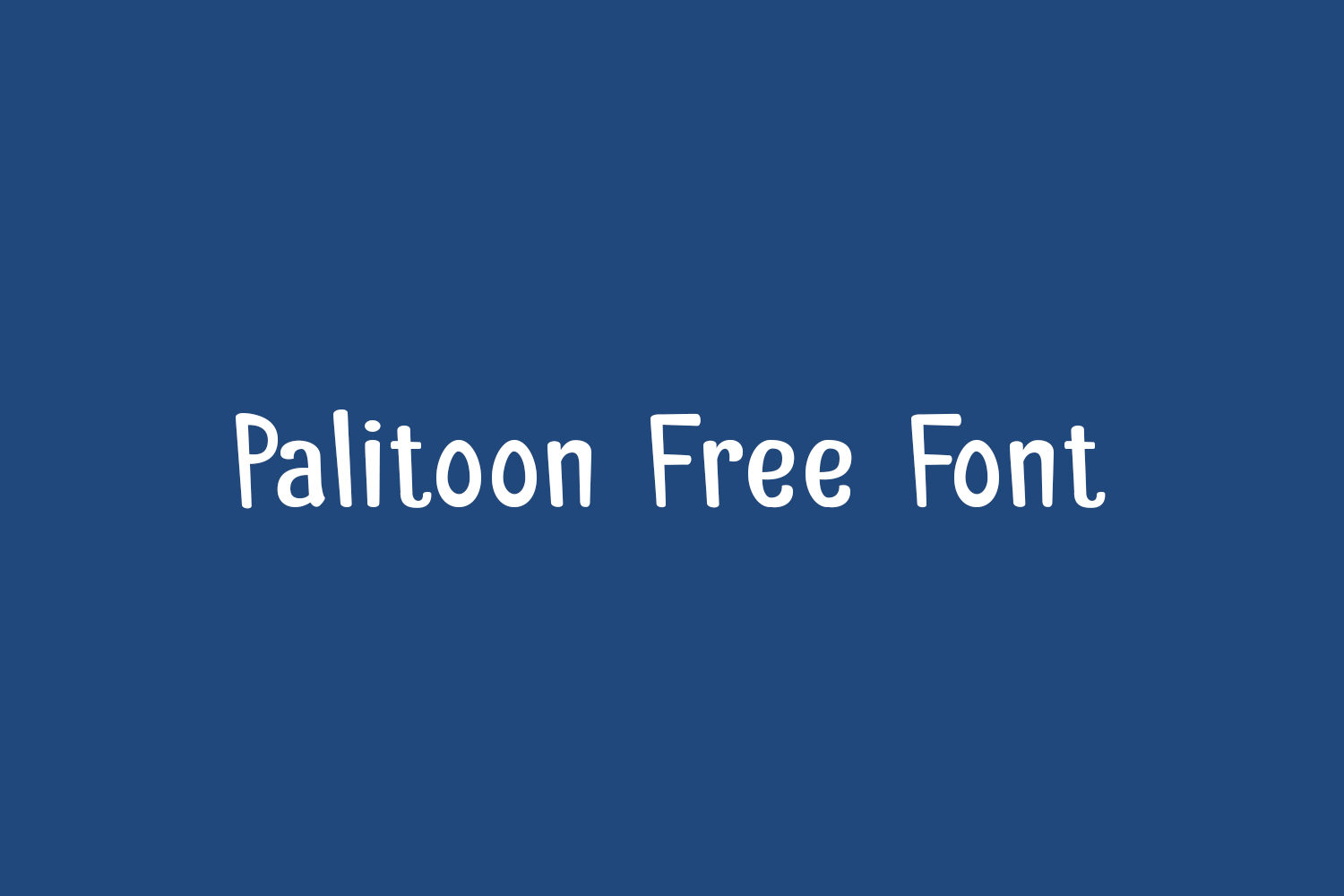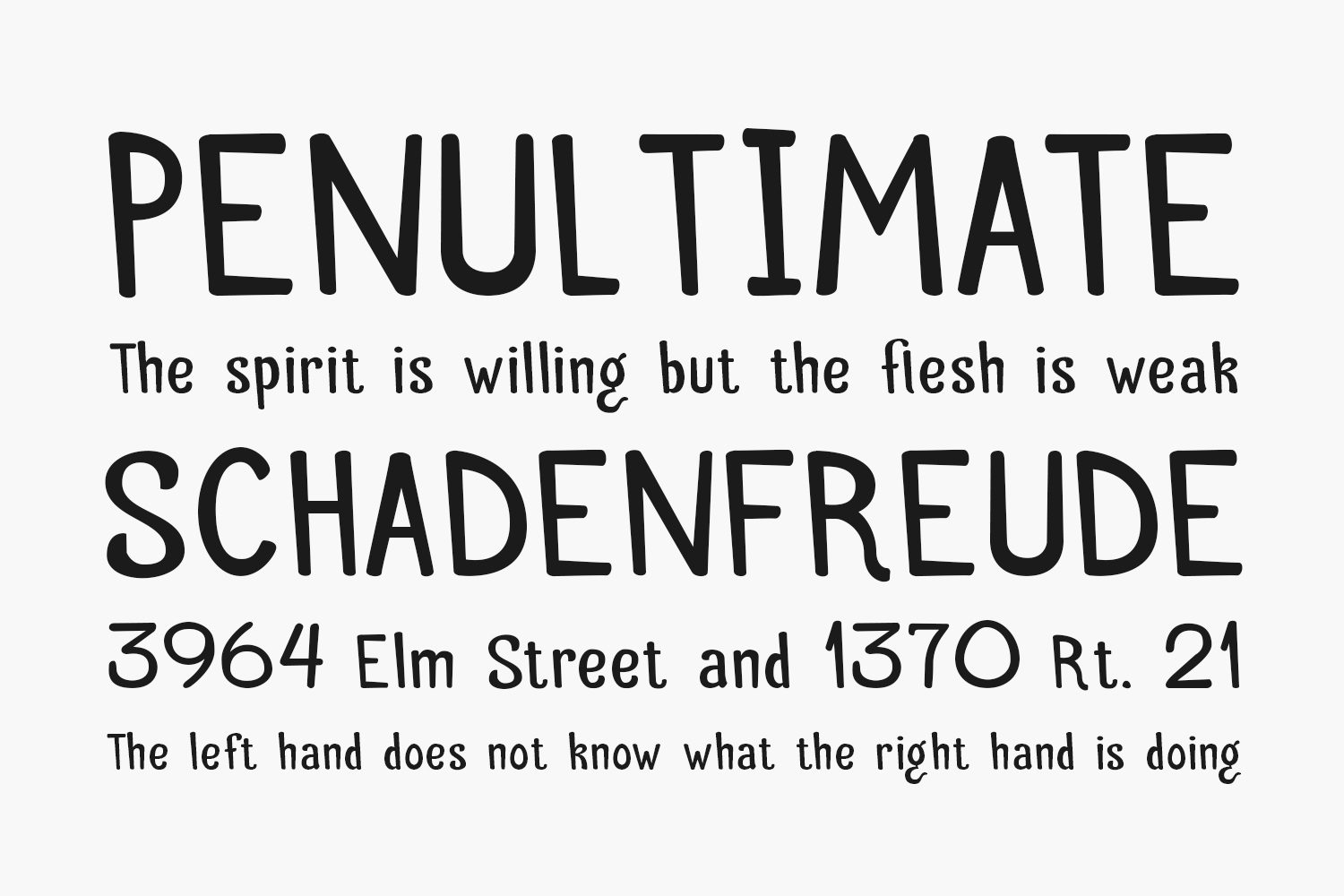
Palitoon is appropriate for projects aiming at children or young people in good colored and fun print and digital publications. Equipped with small caps, accents and a good variety of symbols and punctuation, Palitoon is a good companion for setting clean, fun and stylish headlines in multiple languages.
Designed by Daniel Maciel